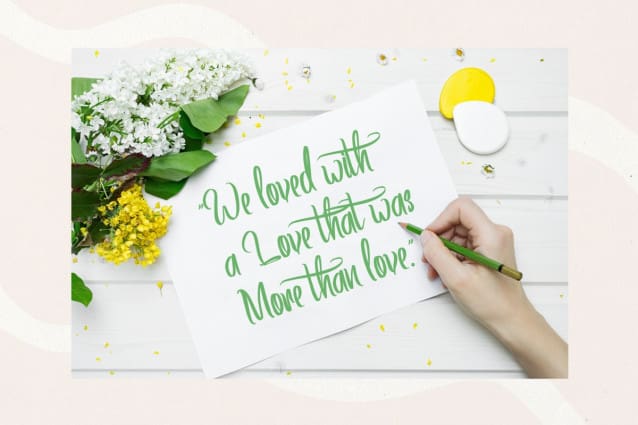
Artics Snow Font
Artics Snow Font is Beauty Script Font with Handlettering Modern Calligraphy Style, with opentype feature include of the font. Suitable for design, element design, wedding, event, t-shirt, logo, badges, sticker, and awesome work, etc..